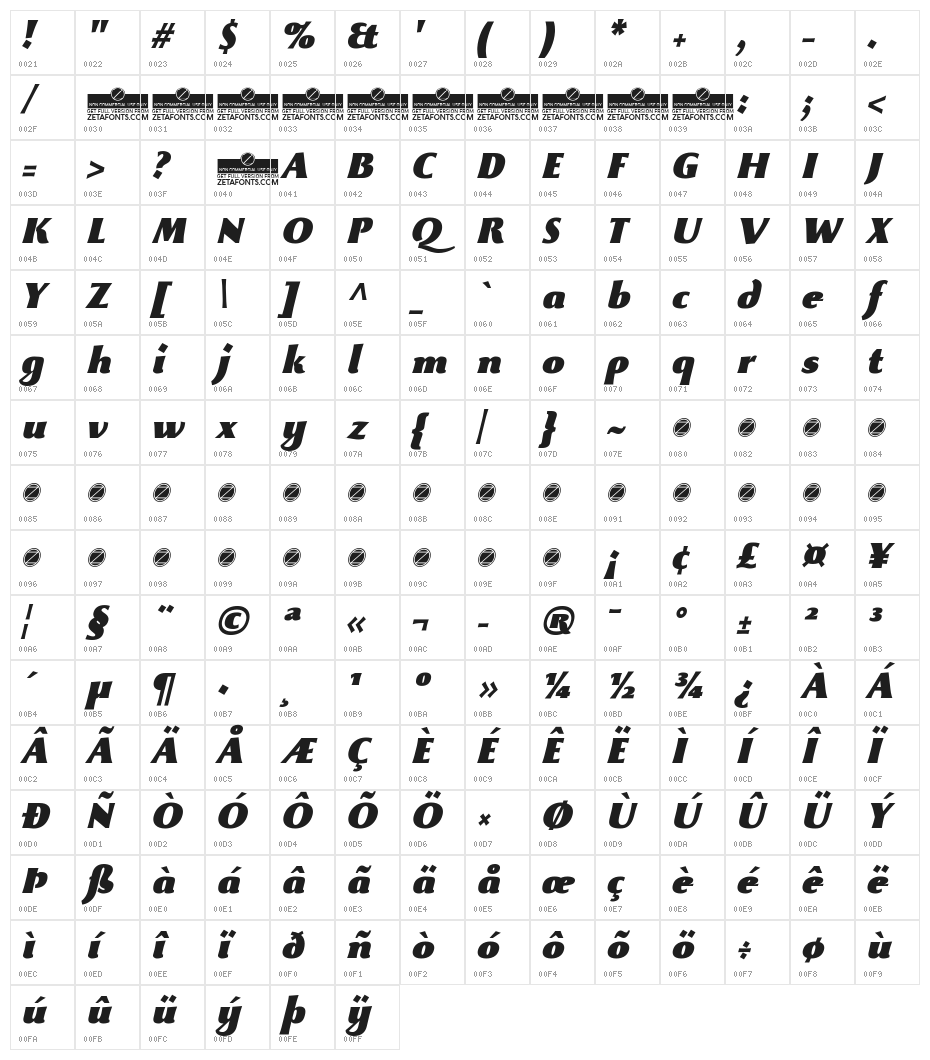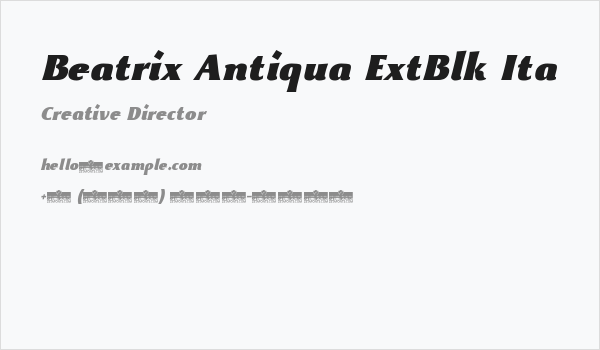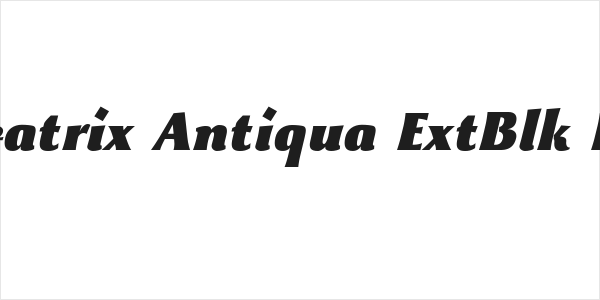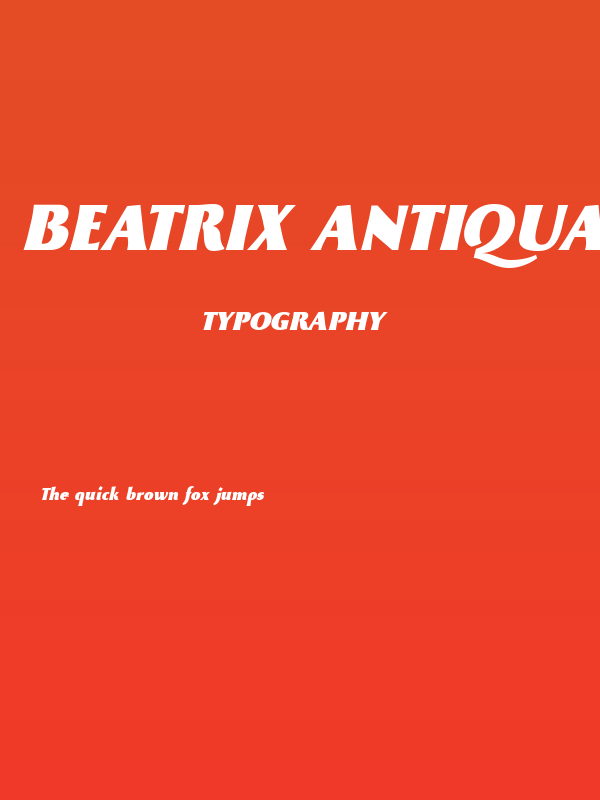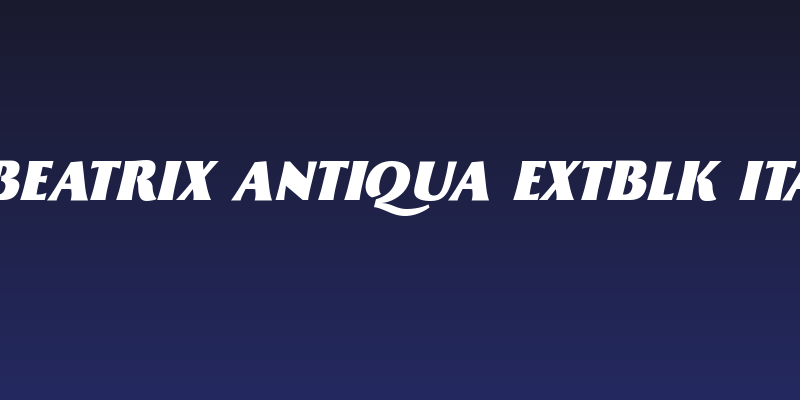
Beatrix Antiqua ExtBlk Ita Font
Beatrix Antiqua ExtBlk Ita Description
This font exhibits a bold and dynamic style with a strong presence, characterized by its thick strokes and italicized form. The letters are designed with a slight slant, adding a sense of movement and energy. The uppercase letters are particularly striking, with sharp angles and a robust structure. The lowercase letters maintain the boldness while offering a slightly softer appearance. The numerals and special characters are consistent with the overall bold and italicized theme, ensuring uniformity across all glyphs. This font is ideal for making a statement, with its high contrast and impactful design.